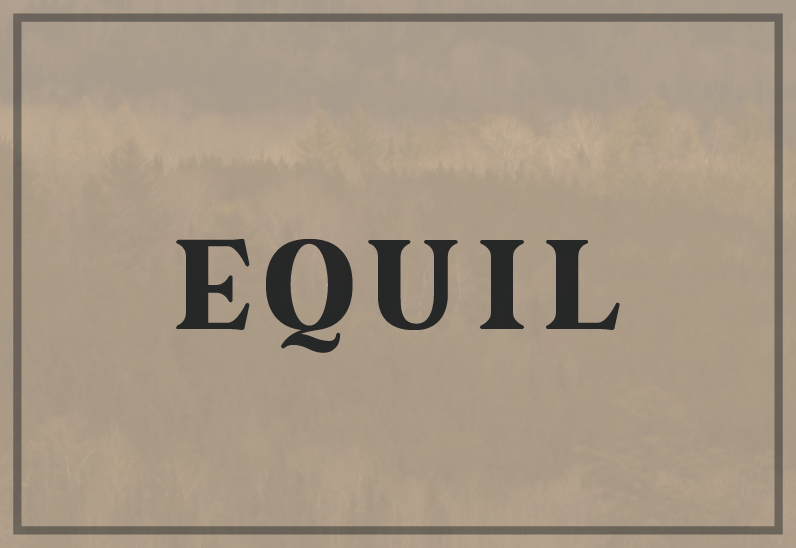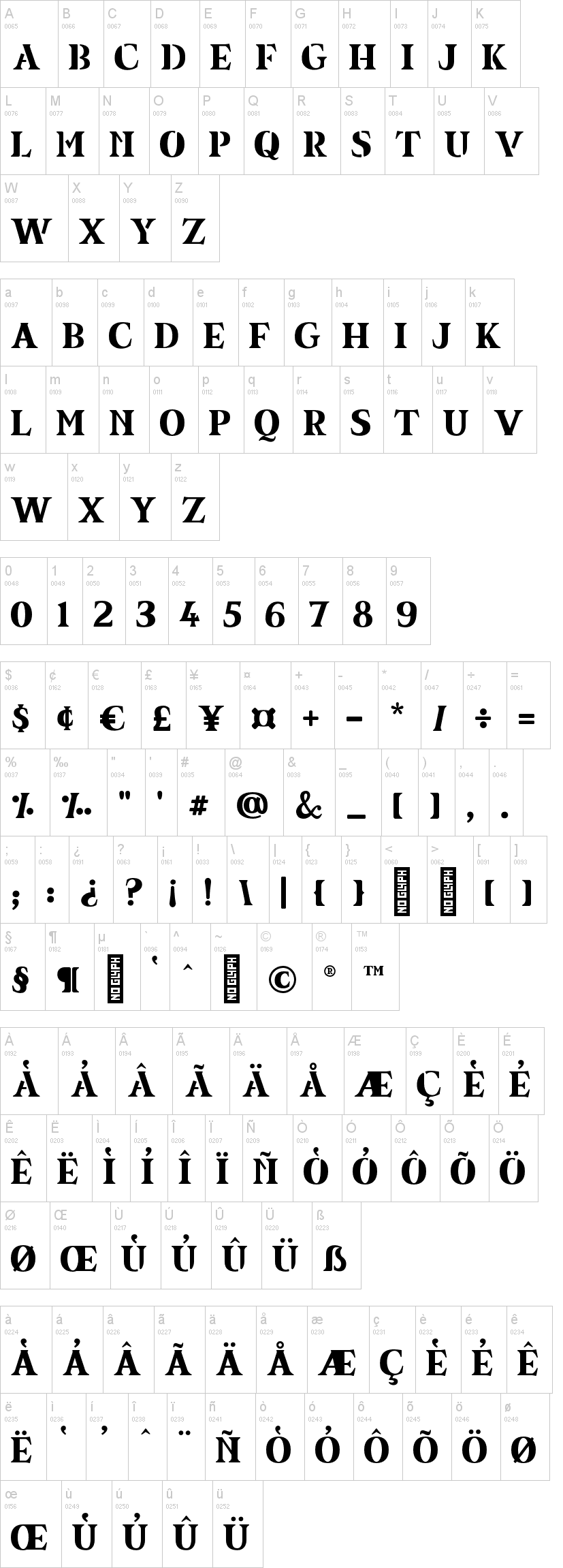
Note of the authorIntroducing equil, our new serif font with optional stencils. In combination with its various alternates, you can create a unique touch to each of your design. Equil is highly recommended for logos, (sub-)headlines, branding and others.